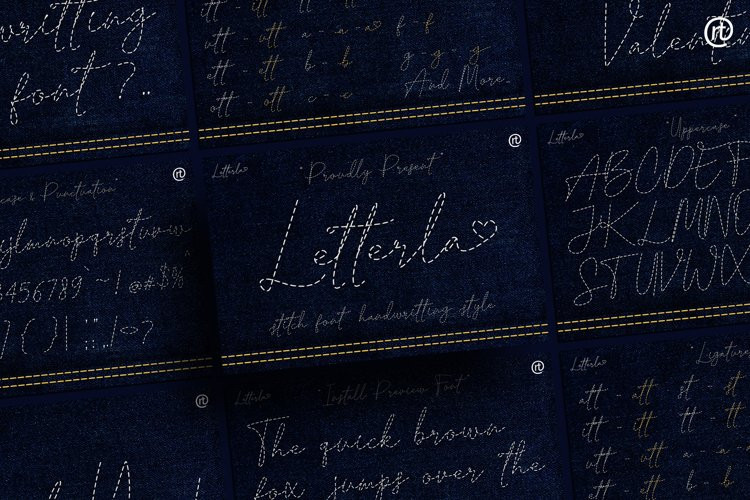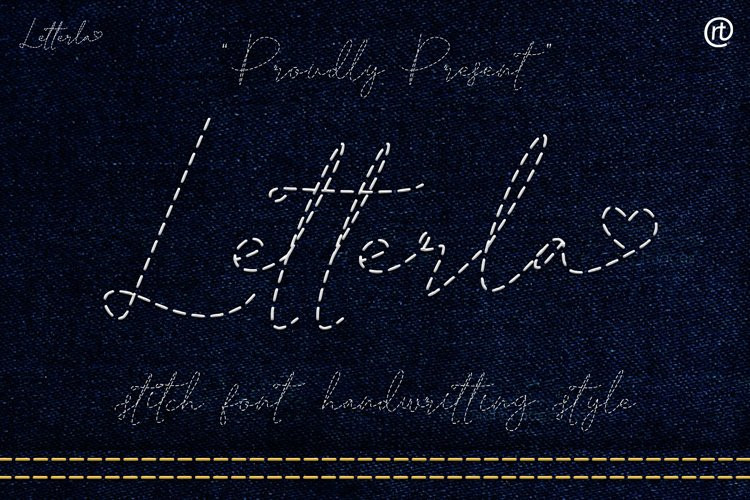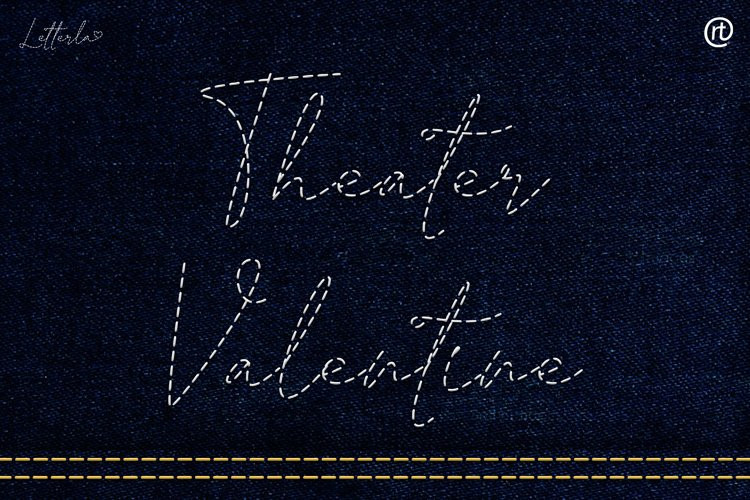
Letterla Font
Letterla FontLetterla is inspired by embroidery stitches blended into a variety of fabrics in cotton and denim.
This font also supports Alternative, Ligature, and Multilingual (Other languages) for use in certain countries. And then this font is suitable for Small/ Big project.